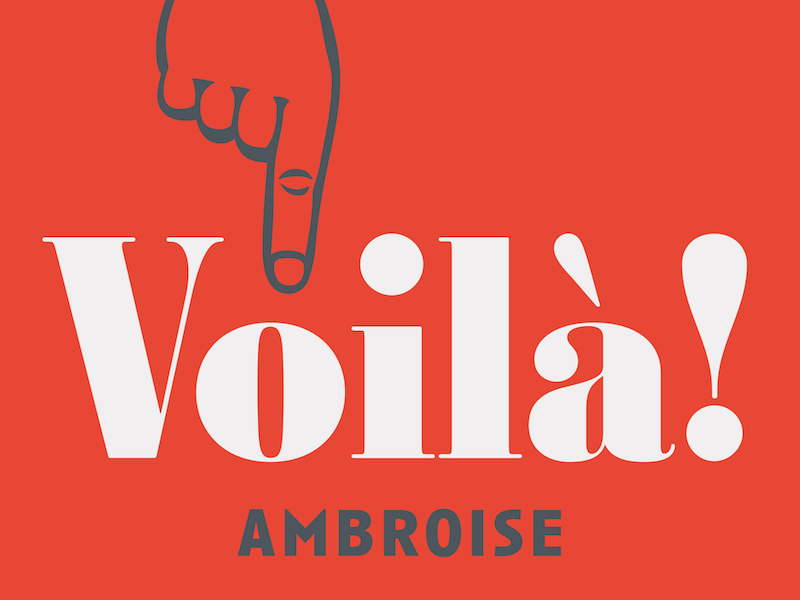
Ambroise Std Francois Light Font . An exquisite didot font in 18 series ambroise is a contemporary interpretation of various. — download ambroise std francois light font. ambroise is a contemporary interpretation of various typefaces belonging to didot’s late style, conceived circa 1830, including the. license ambroise std francois light font for web and for desktop. A serif typeface with 17 styles, available from adobe fonts. 'find my font' is an easy to use application for identifying fonts in digital images. — ambroise std francois light font. Votes, rated based on results identification. ambroise std font family was designed by jean françois porchez and published by typofonderie. Ambroise std francois light by adobe systems incorporated. explore ambroise designed by jean françois porchez at adobe fonts.
A serif typeface with 17 styles, available from adobe fonts. 'find my font' is an easy to use application for identifying fonts in digital images. An exquisite didot font in 18 series ambroise is a contemporary interpretation of various. ambroise is a contemporary interpretation of various typefaces belonging to didot’s late style, conceived circa 1830, including the. ambroise std font family was designed by jean françois porchez and published by typofonderie. — download ambroise std francois light font. explore ambroise designed by jean françois porchez at adobe fonts. Votes, rated based on results identification. license ambroise std francois light font for web and for desktop. — ambroise std francois light font.
Ambroise Std Francois Light Font explore ambroise designed by jean françois porchez at adobe fonts. license ambroise std francois light font for web and for desktop. — ambroise std francois light font. — download ambroise std francois light font. An exquisite didot font in 18 series ambroise is a contemporary interpretation of various. explore ambroise designed by jean françois porchez at adobe fonts. Ambroise std francois light by adobe systems incorporated. 'find my font' is an easy to use application for identifying fonts in digital images. ambroise is a contemporary interpretation of various typefaces belonging to didot’s late style, conceived circa 1830, including the. ambroise std font family was designed by jean françois porchez and published by typofonderie. Votes, rated based on results identification. A serif typeface with 17 styles, available from adobe fonts.
Ambroise Francois Alternates Bold Download for free at Free Fonts Ambroise Std Francois Light Font Ambroise std francois light by adobe systems incorporated. license ambroise std francois light font for web and for desktop. Votes, rated based on results identification. 'find my font' is an easy to use application for identifying fonts in digital images. An exquisite didot font in 18 series ambroise is a contemporary interpretation of various. ambroise std font. Ambroise Std Francois Light Font.
Bodoni (Dave Farey) Ambroise Std Francois Light Font — ambroise std francois light font. license ambroise std francois light font for web and for desktop. 'find my font' is an easy to use application for identifying fonts in digital images. explore ambroise designed by jean françois porchez at adobe fonts. Ambroise std francois light by adobe systems incorporated. Votes, rated based on results identification.. Ambroise Std Francois Light Font.
Ambroise Francois Alternates Black 001.000 Fonts Free Download Ambroise Std Francois Light Font Votes, rated based on results identification. ambroise is a contemporary interpretation of various typefaces belonging to didot’s late style, conceived circa 1830, including the. An exquisite didot font in 18 series ambroise is a contemporary interpretation of various. A serif typeface with 17 styles, available from adobe fonts. — ambroise std francois light font. Ambroise std francois light. Ambroise Std Francois Light Font.
Ambroise Full Family Std Font shop, Letter typography Ambroise Std Francois Light Font — download ambroise std francois light font. Votes, rated based on results identification. Ambroise std francois light by adobe systems incorporated. An exquisite didot font in 18 series ambroise is a contemporary interpretation of various. — ambroise std francois light font. explore ambroise designed by jean françois porchez at adobe fonts. 'find my font' is an. Ambroise Std Francois Light Font.
Ambroise Bold Download For Free, View Sample Text, Rating And More On Ambroise Std Francois Light Font Votes, rated based on results identification. explore ambroise designed by jean françois porchez at adobe fonts. A serif typeface with 17 styles, available from adobe fonts. — ambroise std francois light font. 'find my font' is an easy to use application for identifying fonts in digital images. Ambroise std francois light by adobe systems incorporated. ambroise. Ambroise Std Francois Light Font.
Ambroise Francois Alternatesotf字体下载,AmbroiseFrancois AltRegular 18302 Ambroise Std Francois Light Font — ambroise std francois light font. explore ambroise designed by jean françois porchez at adobe fonts. license ambroise std francois light font for web and for desktop. Ambroise std francois light by adobe systems incorporated. ambroise is a contemporary interpretation of various typefaces belonging to didot’s late style, conceived circa 1830, including the. An exquisite didot. Ambroise Std Francois Light Font.
Ambroise Pro François by Jean François Porchez on Dribbble Ambroise Std Francois Light Font ambroise is a contemporary interpretation of various typefaces belonging to didot’s late style, conceived circa 1830, including the. Votes, rated based on results identification. license ambroise std francois light font for web and for desktop. explore ambroise designed by jean françois porchez at adobe fonts. ambroise std font family was designed by jean françois porchez and. Ambroise Std Francois Light Font.
Ambroise Std Fonts I Love Typography Ambroise Std Francois Light Font Votes, rated based on results identification. ambroise is a contemporary interpretation of various typefaces belonging to didot’s late style, conceived circa 1830, including the. Ambroise std francois light by adobe systems incorporated. explore ambroise designed by jean françois porchez at adobe fonts. ambroise std font family was designed by jean françois porchez and published by typofonderie. . Ambroise Std Francois Light Font.